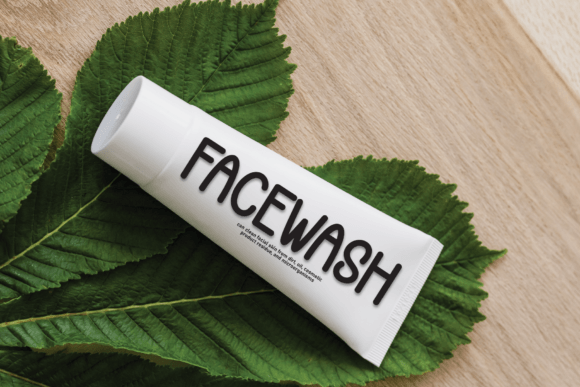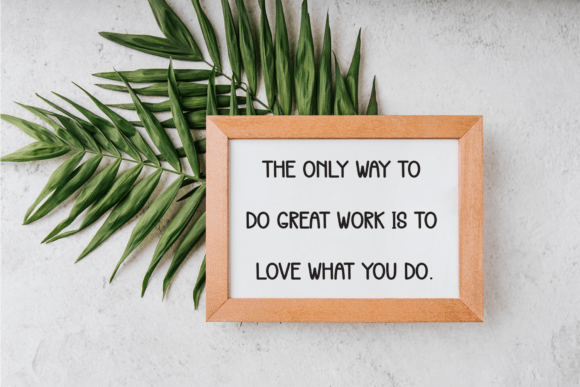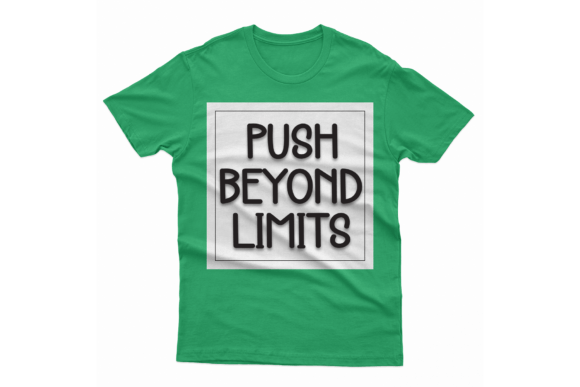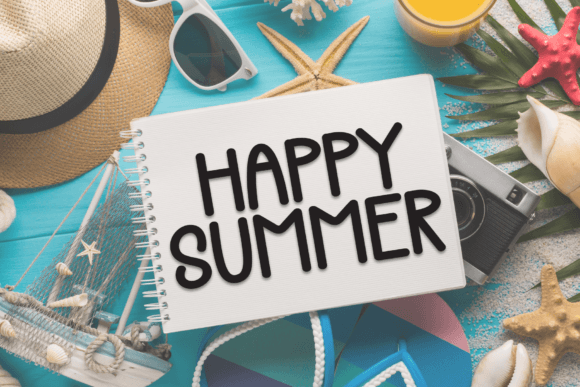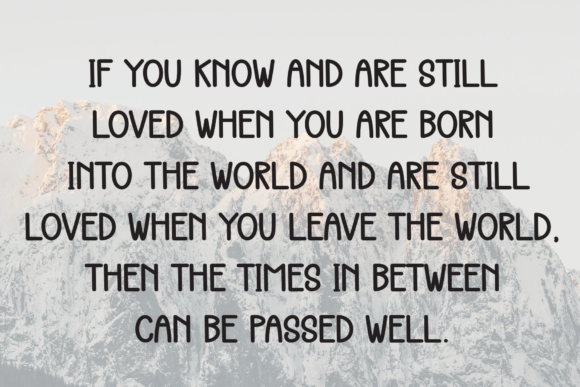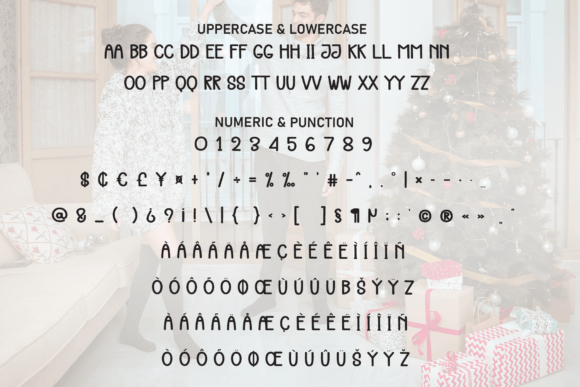
Dancing Christmas Font: Add a Touch of Whimsy to Your Holiday Designs
Are you looking for a font that embodies the carefree spirit of the holiday season? Look no further than the Dancing Christmas font. This casual handwritten font is perfect for designers and crafters who want to add a relaxed and friendly vibe to their holiday designs. In this article, we’ll dive into the features and benefits of the Dancing Christmas font, and explore how you can use it to elevate your holiday projects.
What is Dancing Christmas Font?
Dancing Christmas is a beautiful, casual handwritten font that captures the essence of a relaxed and friendly holiday season. With its natural, flowing strokes, this font exudes a sense of warmth and authenticity that’s perfect for personal projects, social media, and invitations. The font’s effortless, charming touch makes it ideal for designers and crafters who want to add a touch of whimsy to their holiday designs.
Key Features of Dancing Christmas Font
- Casual Handwritten Style: Dancing Christmas font features a casual handwritten style that’s perfect for creating a relaxed and friendly vibe.
- Natural Flowing Strokes: The font’s natural, flowing strokes give it a charming and effortless touch.
- Easygoing Style: The font’s easygoing style adds warmth and authenticity to any design.
- Versatile: Dancing Christmas font is perfect for personal projects, social media, invitations, and more.
Benefits of Using Dancing Christmas Font
So, why should you use Dancing Christmas font in your holiday designs? Here are just a few benefits:
- Adds a Personal Touch: The font’s casual handwritten style adds a personal touch to any design, making it perfect for holiday cards, invitations, and gifts.
- Creates a Relaxed Vibe: Dancing Christmas font creates a relaxed and friendly vibe that’s perfect for holiday designs that want to convey a sense of warmth and coziness.
- Versatile: Dancing Christmas font can be used in a variety of designs, from holiday cards and invitations to social media graphics and blog posts.
How to Use Dancing Christmas Font in Your Designs
Using Dancing Christmas font in your designs is easy. Here are a few tips to get you started:
- Pair with Other Fonts: Pair Dancing Christmas font with other fonts to create a unique and eye-catching design.
- Use in Holiday Cards and Invitations: Use the font in holiday cards and invitations to add a personal touch.
- Add to Social Media Graphics: Add Dancing Christmas font to your social media graphics to create a relaxed and friendly vibe.
If you’re a designer or crafter looking to use Dancing Christmas font in your holiday designs, here are a few tips to keep in mind:
- Keep it Simple: Keep your design simple and clean to let the font shine.
- Experiment with Different Sizes: Experiment with different font sizes to create visual interest.
- Use in Combination with Other Elements: Use Dancing Christmas font in combination with other design elements, such as images and graphics, to create a unique and eye-catching design.
Dancing Christmas font is a beautiful and versatile font that’s perfect for holiday designs. With its casual handwritten style, natural flowing strokes, and easygoing style, it’s ideal for designers and crafters who want to add a relaxed and friendly vibe to their holiday projects. Whether you’re creating holiday cards, invitations, social media graphics, or blog posts, Dancing Christmas font is sure to bring a touch of whimsy and charm to your designs.